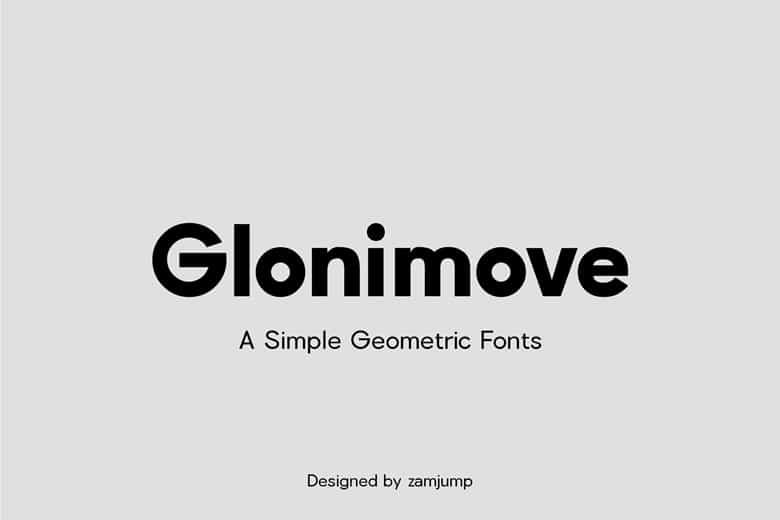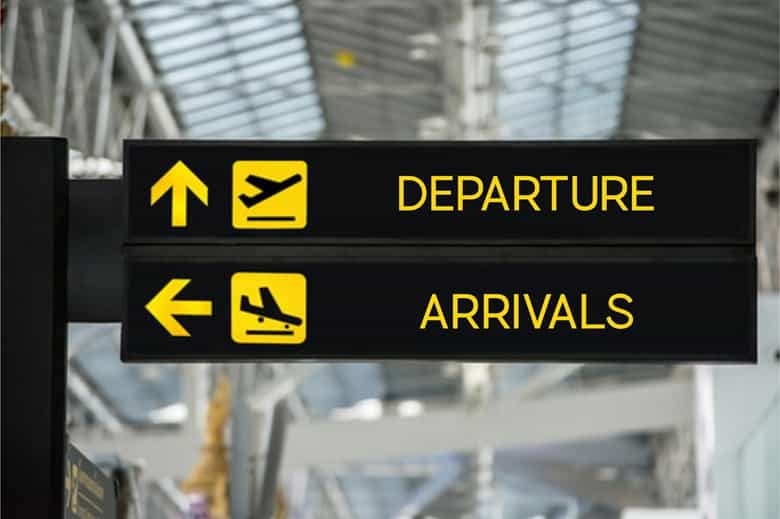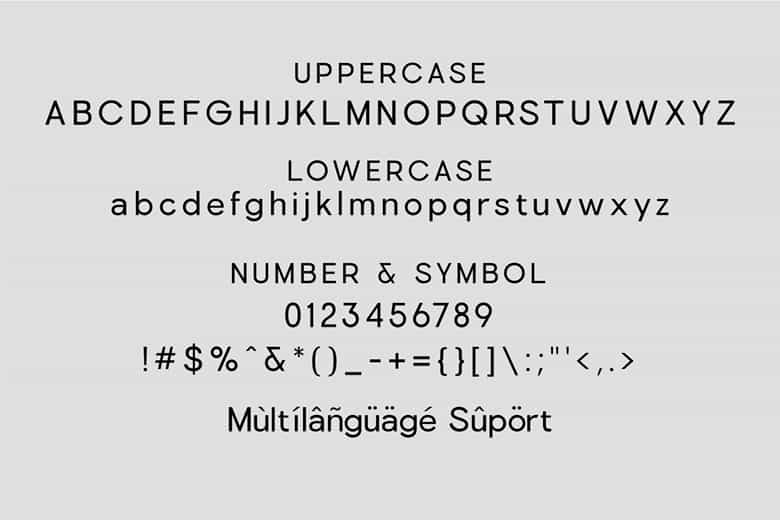
Glonimove is a geometrical simple sans serif font that brings simplicity and sophistication into the typefaces. This makes Glonimove very flexible and accurate and therefore, suitable for use in any design project.